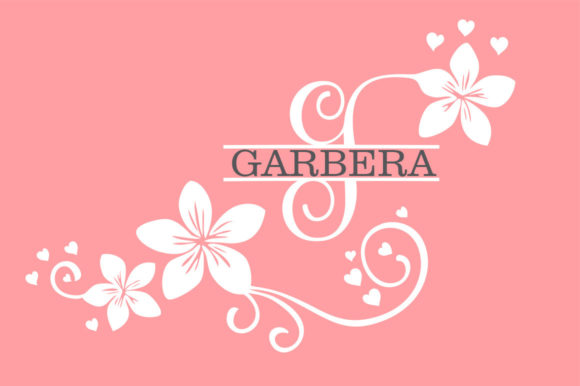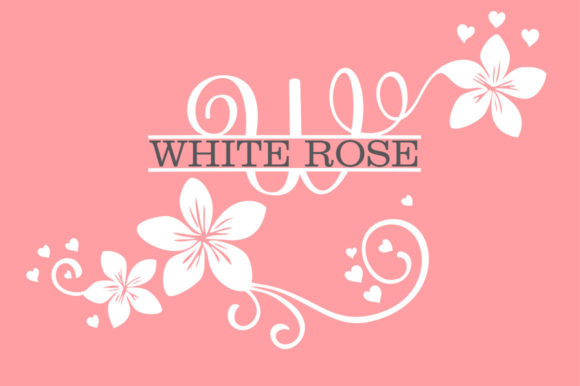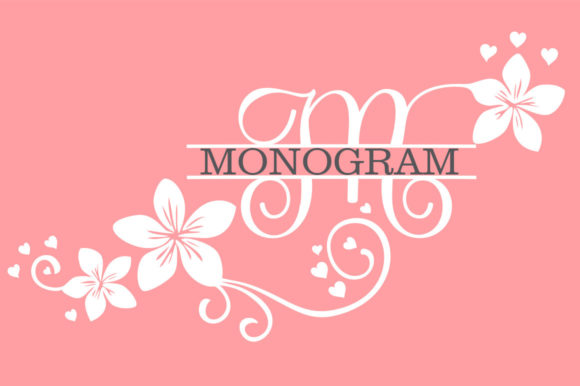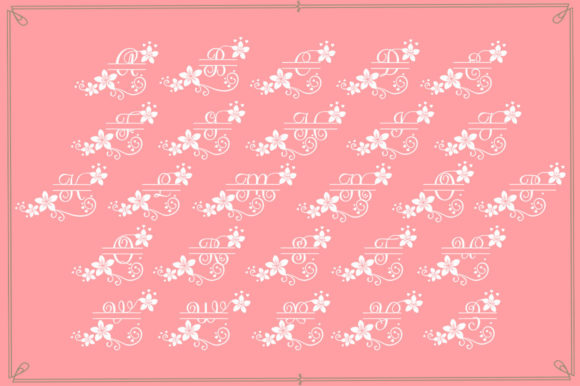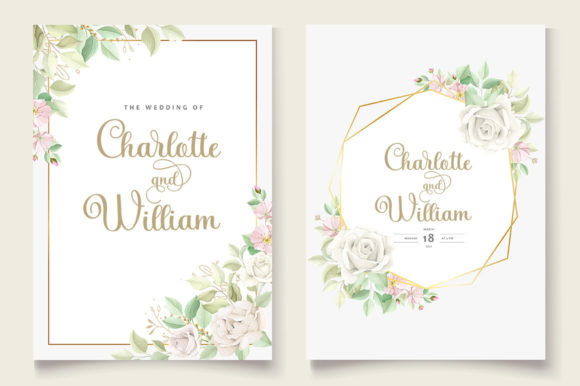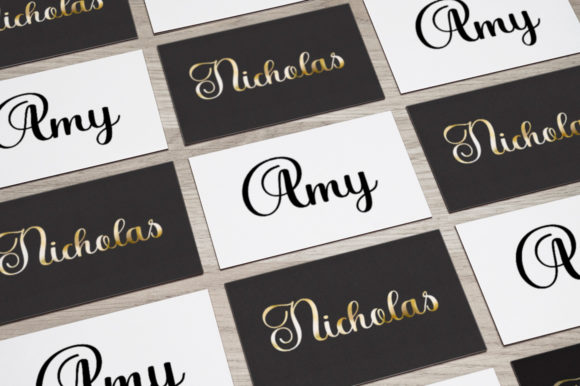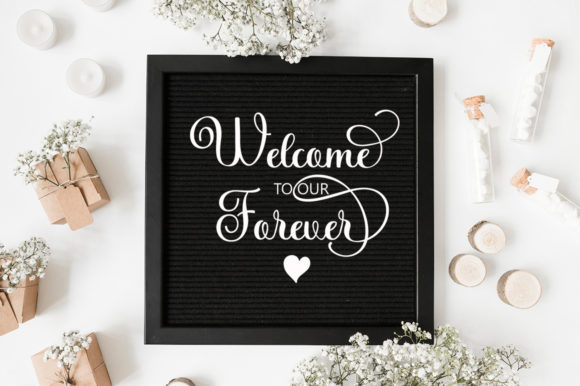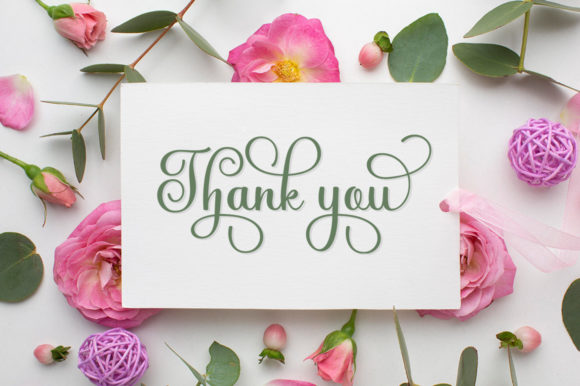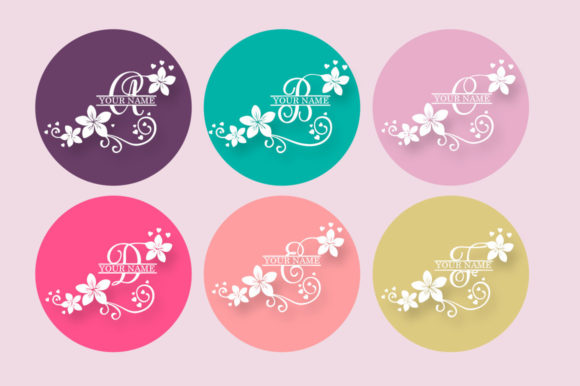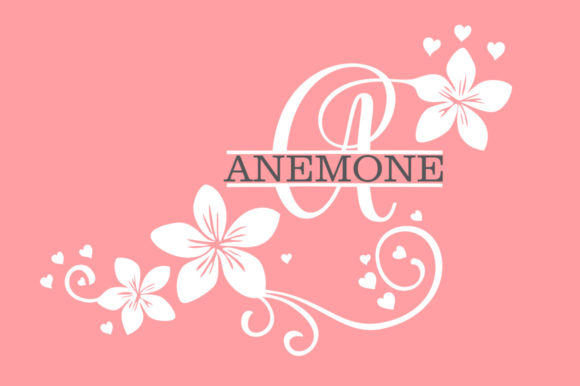
Bouquet Font
About Bouquet Font
Bouquet is an incredibly elegant and delicate handwritten font that exudes sophistication and charm. With its stunning design, this font is perfect for a wide range of applications, including wedding invitations, thank you cards, quotes, greeting cards, logos, business cards, and any other design that requires a touch of elegance.
The graceful and refined letterforms of Bouquet create a sense of beauty and sophistication in your designs. Whether you’re working on wedding stationery, expressing gratitude with heartfelt thank you cards, adding a touch of elegance to your quotes, sending warm greetings through greeting cards, showcasing your brand with a captivating logo, or creating professional business cards that make a lasting impression, Bouquet will elevate your designs and make them truly stand out.
Bouquet’s unique features, such as the varying baseline, smooth lines, gorgeous glyphs, and stunning alternates, add an extra layer of beauty and versatility to your designs. The varying baseline gives the font a natural and organic feel, while the smooth lines create a sense of elegance and fluidity. The gorgeous glyphs and stunning alternates provide you with creative options to customize and personalize your designs, making them even more unique and captivating.
Embrace the elegance and delicacy of Bouquet and let it enhance your designs. Incorporate this font into your projects, and you’ll witness how it adds a touch of sophistication and charm, elevating every aspect of your design.